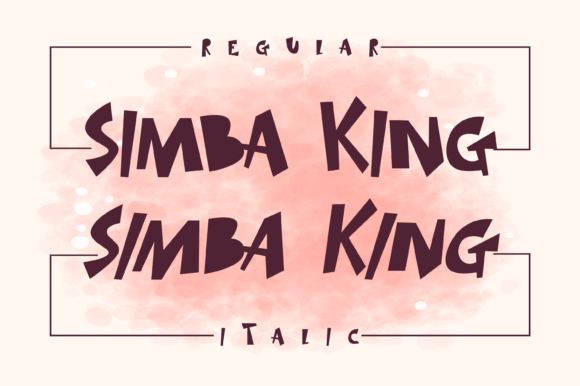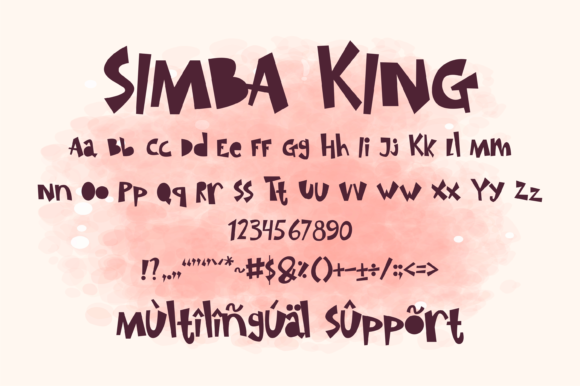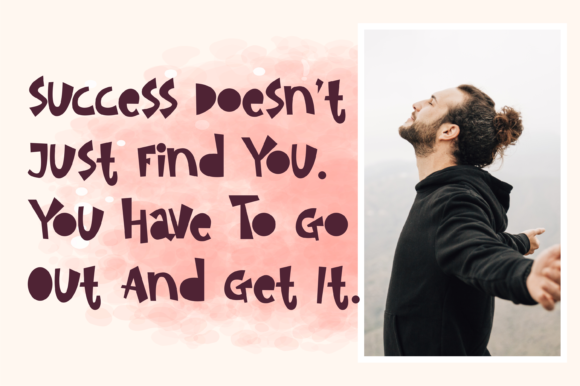
Introduction to Simba King Font
Have you ever been stuck on a creative project, staring blankly at your screen as the cursor blinks away in frustration? We’ve all been there. But sometimes, all it takes is the right design resource to spark that elusive idea. For designers and creatives, finding the perfect font can be the difference between a mediocre project and a masterpiece.
Enter the Simba King Font, a fun and quirky display font that’s sure to bring a smile to your face. With its playful aesthetic and high-quality design, this font is perfect for adding a touch of whimsy to your next creative project. Whether you’re working on a free download or a paid design, the Simba King Font is a valuable addition to any design arsenal.
Key Features of Simba King Font
- Unique, hand-drawn design with a regal and majestic feel, perfect for creative projects that require a touch of royalty.
- High-quality font with transparent background, ideal for designers looking for a versatile design resource.
- Comes with a range of characters, including uppercase and lowercase letters, numbers, and special characters, making it a great design resource for various creative projects.
- Designed to be used in various design applications, including logos, branding, and graphics, making it an excellent choice for designers and artists.
Honest Review: Simba King Font
I recently came across the Simba King Font and was excited to give it a try. As a designer, I’m always on the lookout for high-quality design resources that can elevate my creative projects. The Simba King Font is a free download that promises to deliver a unique and eye-catching look.
- ✨ What works well: The font has a beautiful, handwritten feel that’s perfect for creative projects that require a personal touch. The high-quality design is evident in every aspect of the font, from the letterforms to the spacing.
- ✨ Another great feature is the transparent background option, which makes it easy to place the font on top of any image or background without worrying about distracting shadows or outlines.
However, I did encounter some limitations when using the Simba King Font. ⚠️ The font can be quite busy and may not be suitable for projects that require a lot of text. Additionally, the font is not as versatile as some other fonts I’ve used in the past.
Overall, I’m impressed with the Simba King Font and would definitely recommend it for creative projects that require a unique and eye-catching look. While it may have some limitations, the high-quality design and transparent background option make it a valuable resource for designers.
To get the most out of the Simba King Font, experiment with different font sizes, colors, and styles. Use it in combination with other design elements to create a unique and engaging visual effect.
The Simba King Font is ideal for use in logos, branding, and marketing materials. It’s also perfect for use in social media graphics, presentations, and other creative projects that require a high-quality and unique font.